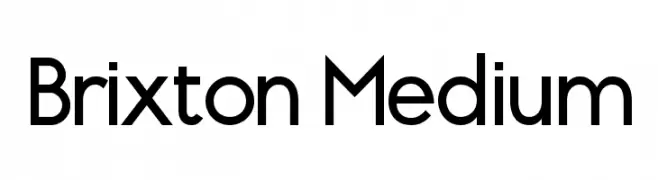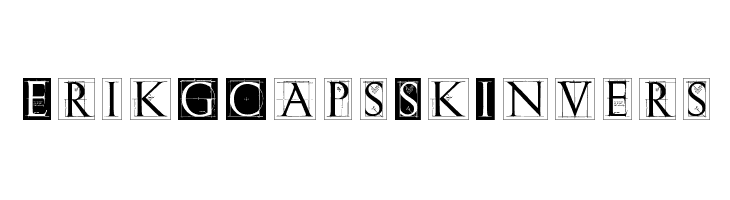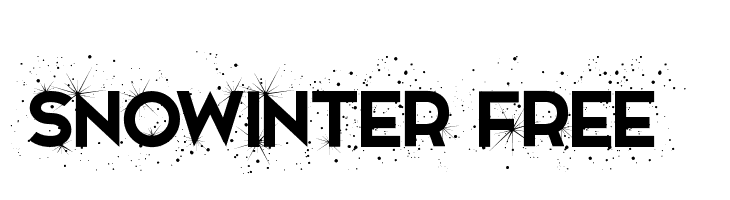
A bold, decorative font with textured lines and star accents.
An ornate and whimsical font with elaborate curls and loops.
A futuristic, geometric font with clean lines and rounded edges.
A bold, textured script font with a rugged, adventurous style.
A bold, expanded font with geometric shapes and a strong, industrial style.
A bold, geometric font with tight spacing and a modern, edgy style.
A playful and energetic script font with flowing, cursive letterforms.
Bold and italicized with a modern, dynamic style.
A modern, italic font with clean lines and balanced proportions.
A modern, semi-bold italic font with sleek curves and clean lines.
A bold, modern font with geometric structure and consistent stroke width.
A playful, casual handwritten font with a school-like, dynamic feel.
A bold, expressive handwritten font with fluid, dynamic strokes.
A bold, handwritten font with a playful and energetic style.
A decorative font featuring romantic and whimsical symbols.
A dynamic script font with smooth, flowing lines and a handwritten style.
A sleek, ultra-light typeface with geometric lines and minimal contrast.
A playful, hand-drawn font with bold, rounded characters.
A bold, geometric font with sharp angles and a blocky, stencil-like appearance.
A bold, decorative font with intricate details and ornate flourishes.
A playful, hand-drawn font with dynamic strokes and a whimsical feel.